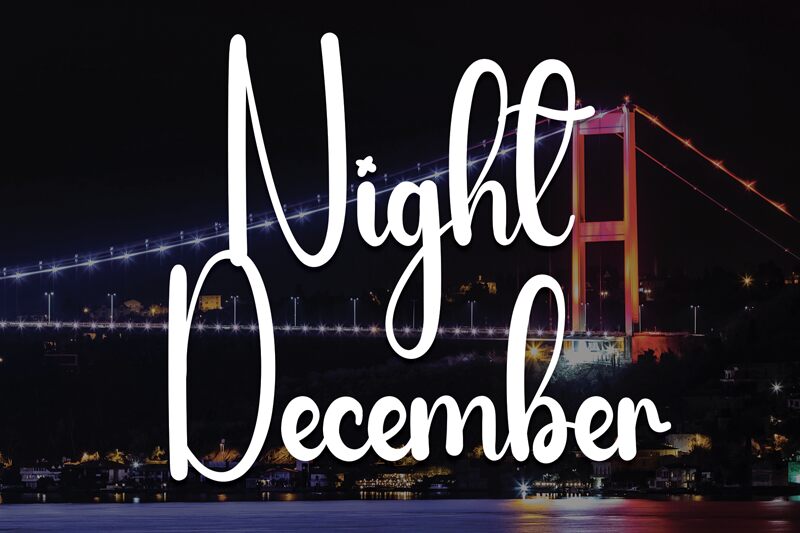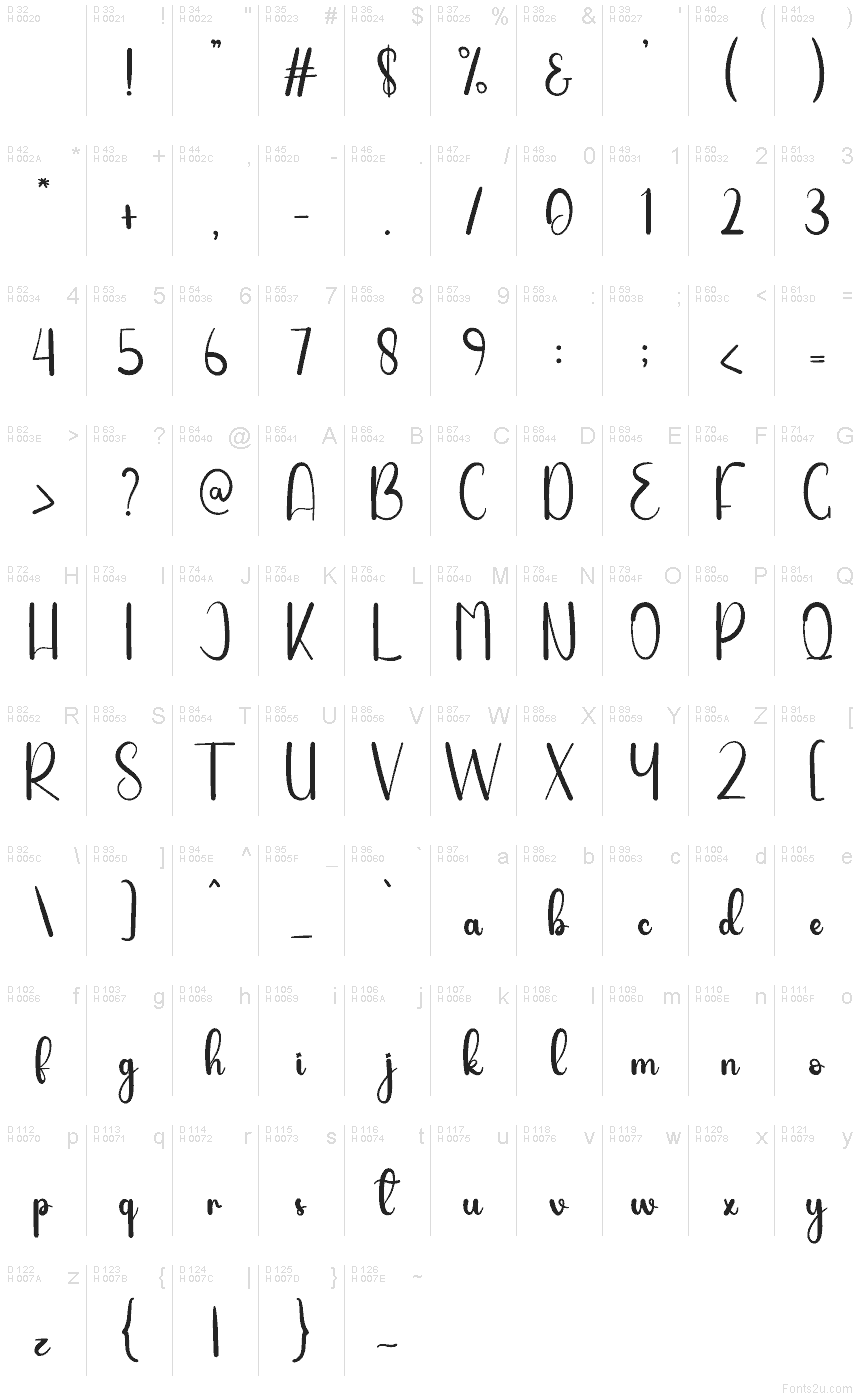
Night December
Night December font by Andi Moz is a free handwritten font with a flowing and sophisticated style. This condensed typeface carries an elegant and modern script appearance, making it look stylish and instantly visible to the eye.
Use this typeface on branding projects, headings, packaging, social media posts, book covers, magazines, and certificates. Additional applications include stationery designs, business cards, greeting cards, invitations for formal events—even that of lovely weddings—logos as well as presentation slides.